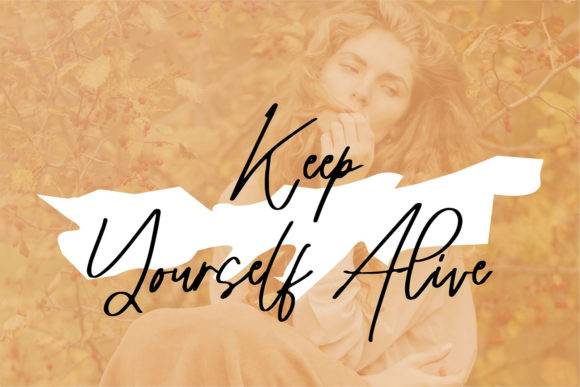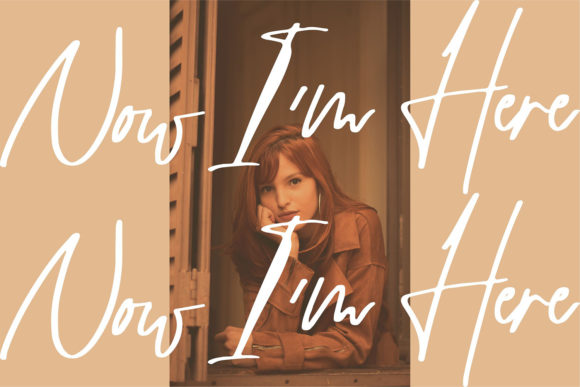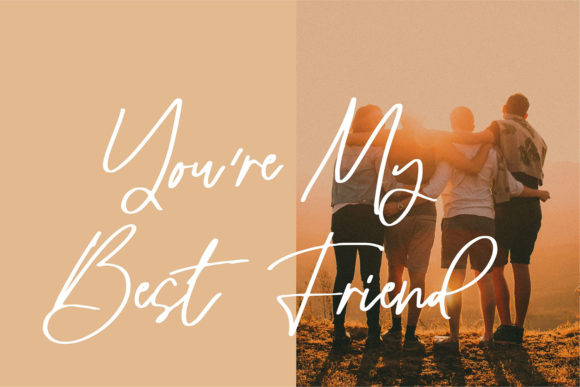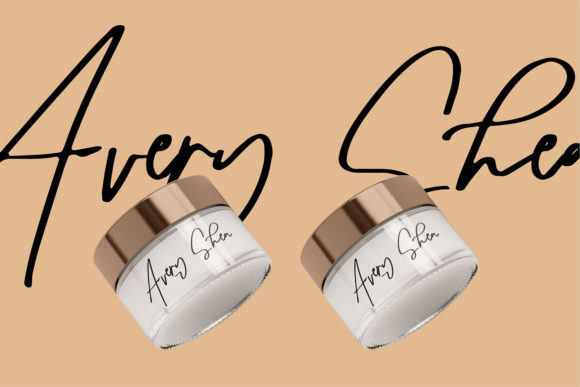
About Sellathy Font
Sellathy is a fashionable and incredibly unique handwritten font. It is defined by smooth curves and is perfect for fashion branding or editorial designs. Add it confidently to your projects, and you will love the results.